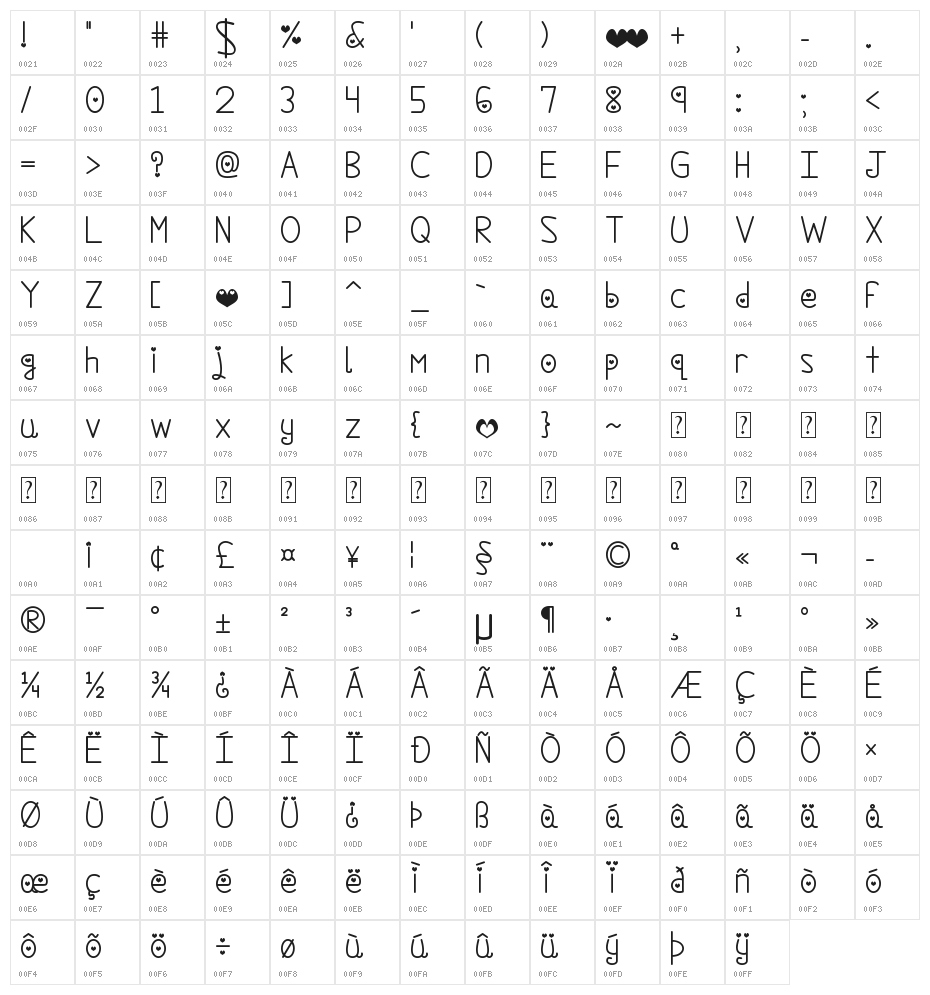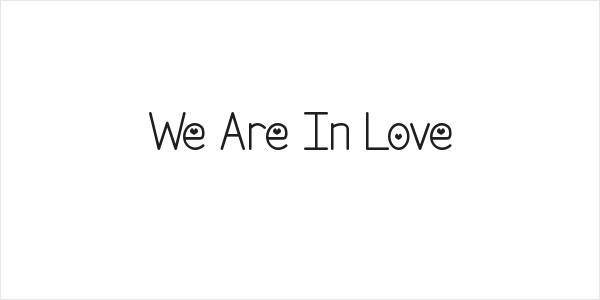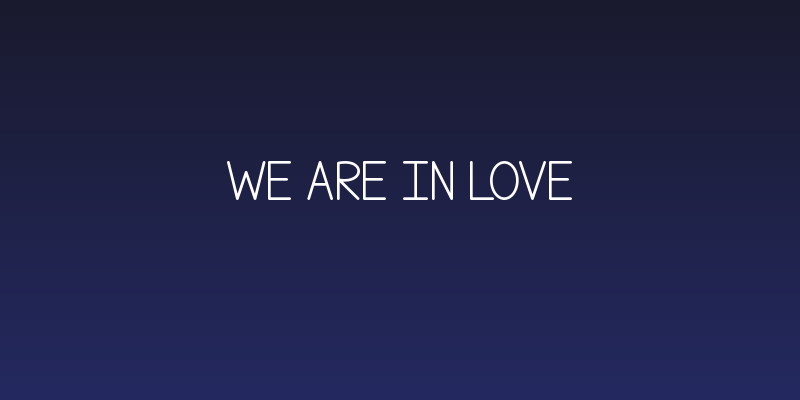
We Are In Love Font
| Estilo general | Playful, Romantic |
| Caso de uso | Headlines, Invitations, Greeting Cards |
| Proyectos propuestos | Ideal for wedding invitations, Valentine's Day cards, love-themed posters, and playful branding. |